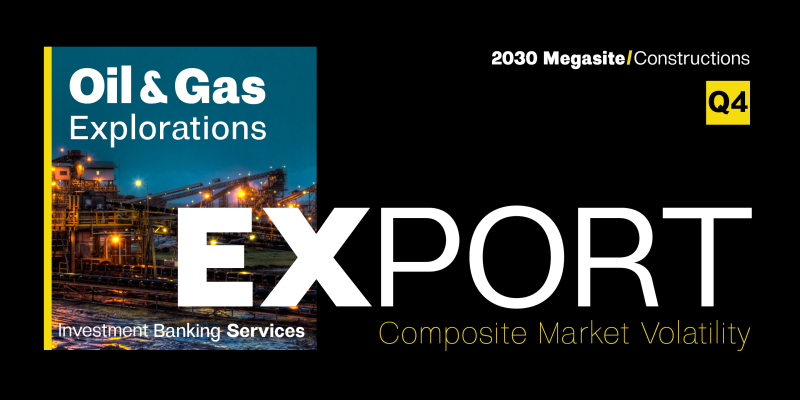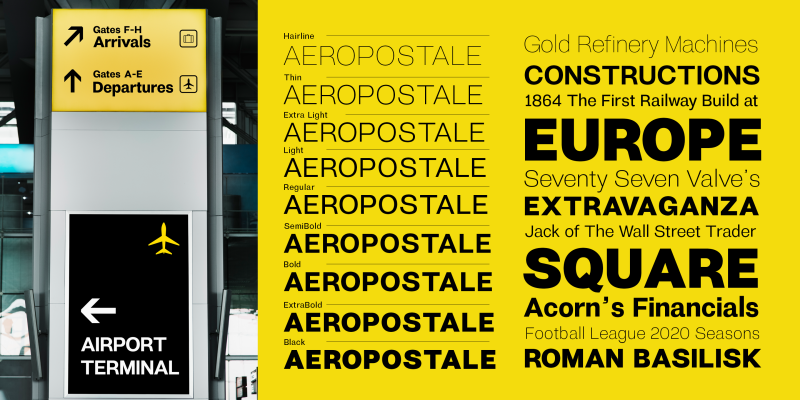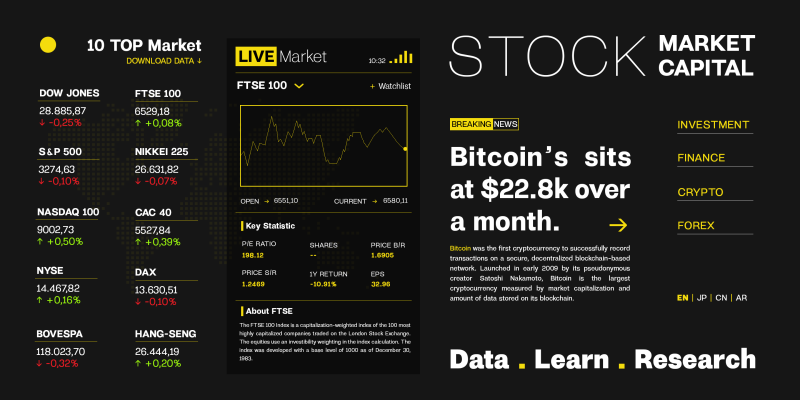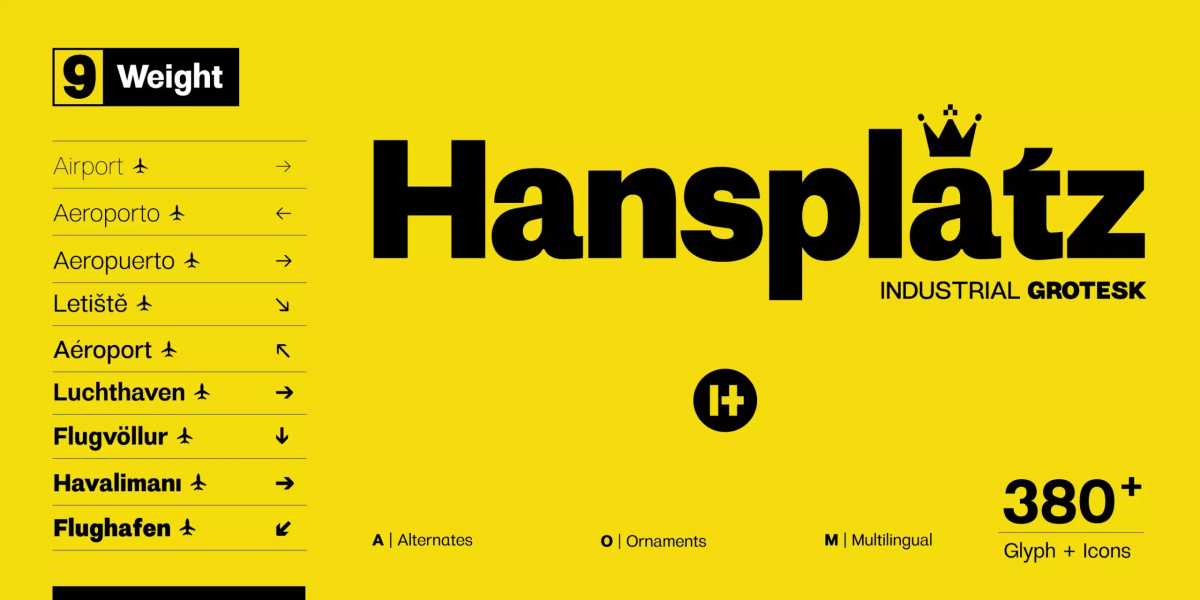
Hansplatz Grotesk Font Family
Hansplatz Grotesk is a sans serif type family of nine weight. Influenced by Akzidens Grotesk, Hansplatz typeface bring a new approach to this utilitarian style of grotes…
Hansplatz Grotesk is a sans serif type family of nine weight. Influenced by Akzidens Grotesk, Hansplatz typeface bring a new approach to this utilitarian style of grotesk. With more square proportions rather than geometric style, Hansplatz grotesk aimed to ease typesetting job when arranging a words or paragraph easily.
A wide range of weight gives flexibility to every design project, hansplatz fit nicely to grid-system because of proportions. Furthermore Hansplatz Grotesk supplied with smart Opentype scripting to assist typesetter and designer very easily to Hansplatz feature. Hansplatz Grotesk truly a utilitarian, workhorse, neutral, and of course faceless.
But, it makes the work done quickly. For display use, Hansplatz Grotesk Black to Semi-Bold is recommended, for paragraph heavy design, use regular and light weight. To spice up, adding Hairline or extra-light weight will make a design execution looks great and catchy but not intimidating.
Where Hansplatz Grotesk Font Family works best
Hansplatz Grotesk Font Family stays legible at small sizes, which makes it a strong choice for navigation, buttons and dashboards in web design and app interfaces.
Clean sans serifs like Hansplatz Grotesk Font Family are the default language of SaaS, fintech and product branding.